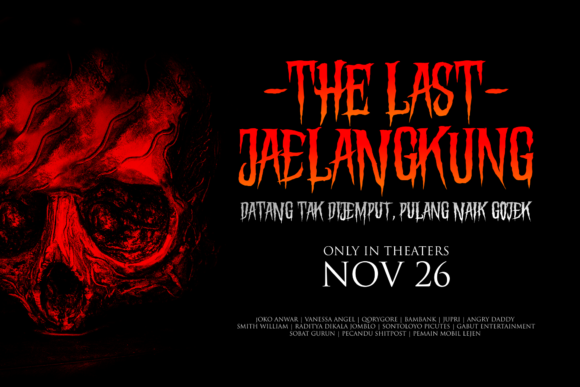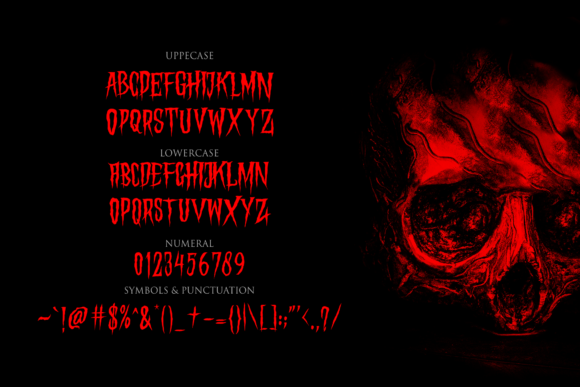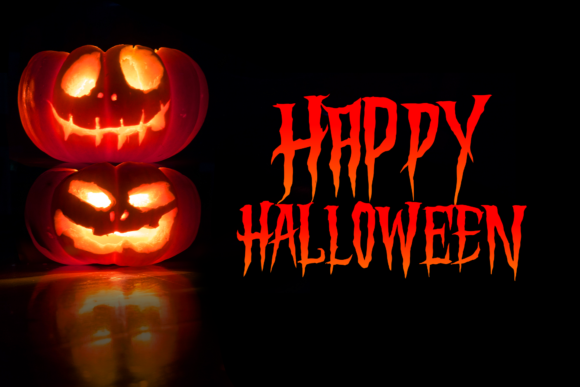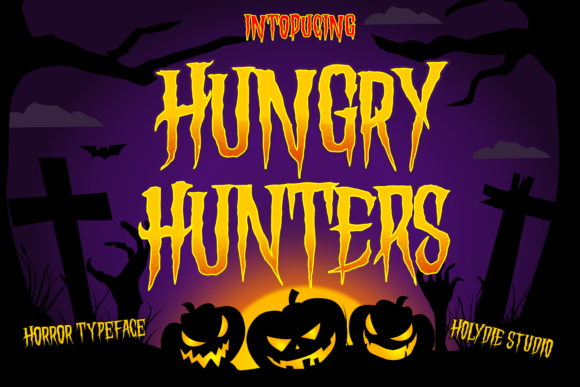
Hungry Hunters
Seeking a font that exudes the eerie essence of Halloween? Look no further than bold, handcrafted fonts with a touch of macabre flair. "Hungry Hunters" is a perfect match for your spooky design endeavors, offering an unsettling charm reminiscent of old-school horror movie titles.
This handmade font is designed to evoke the thrill and chill of the dark side, making it ideal for projects that require a sense of foreboding or menace. Its unique, irregular letterforms will add a touch of authenticity to your designs, as if they were crafted by a madman with a penchant for the bizarre.
Whether you're creating a haunted house flyer, a horror movie poster, or a t-shirt design for a creepy costume party, "Hungry Hunters" is sure to deliver the goods. Its bold lines and unsettling aesthetic will grab attention and leave your audience in stitches (or should we say, screams?).
So if you're looking for a font that's equal parts eerie, kooky, and captivating, look no further than "Hungry Hunters". This font is sure to satisfy your craving for the perfect blend of horror and humor.